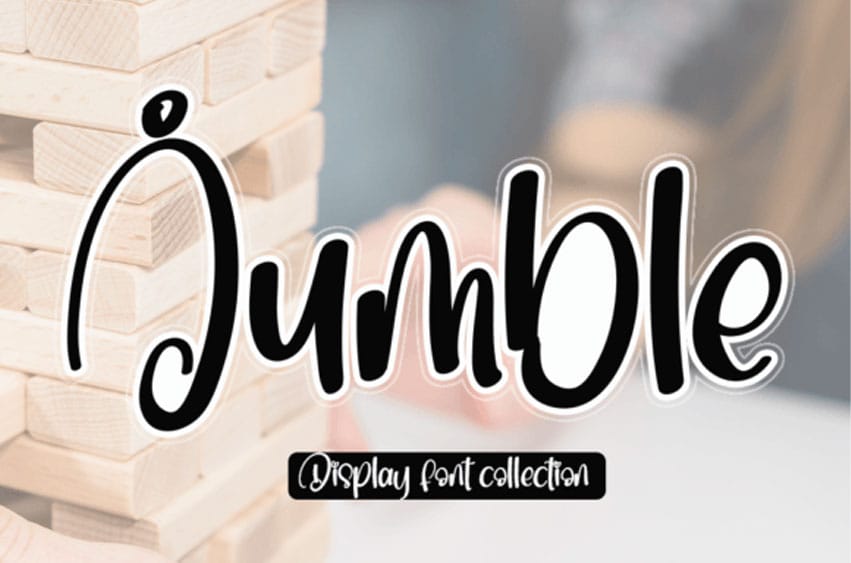
Jumble Display Font is a simple and friendly handwritten font.
Whether you’re using it for crafts, digital design, presentations, or making greeting cards, this font has the potential to become your favorite go-to font, no matter the occasion.